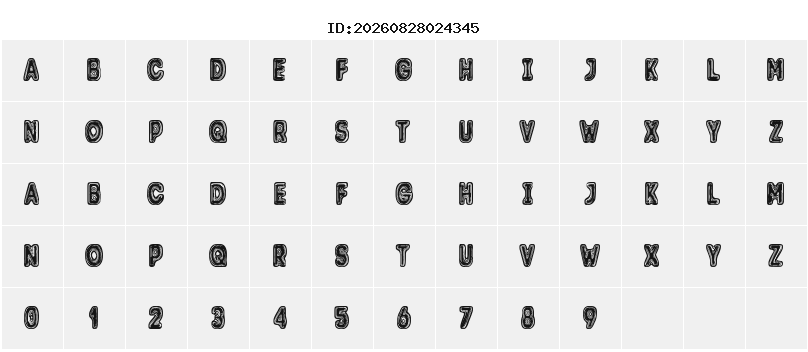
• Font Name: Trolli
• Full Font Name: Trolli
• Version: Version 1.00 May 30, 2014, initial release
• Designer: junkohanhero
About Trolli.ttf
Trolli.ttf is a modern, elegant sans-serif font designed for ultimate readability and visual harmony. Perfect for branding, headlines, web design, and print materials.